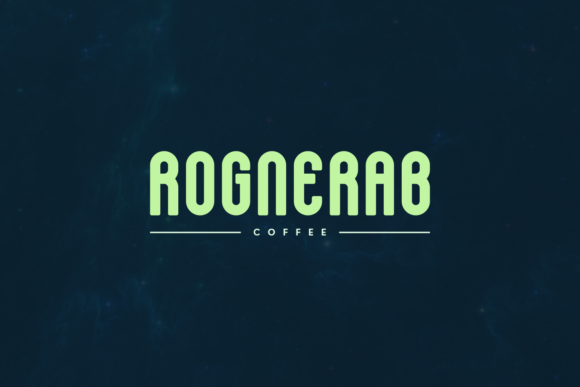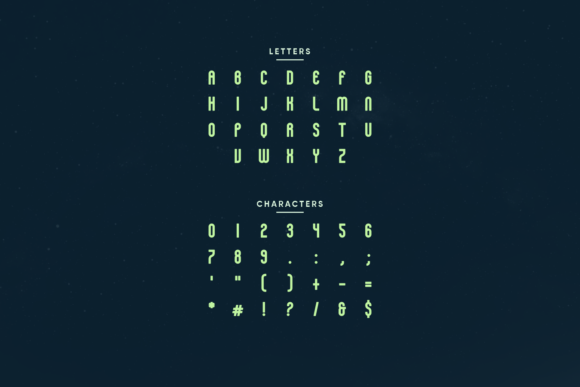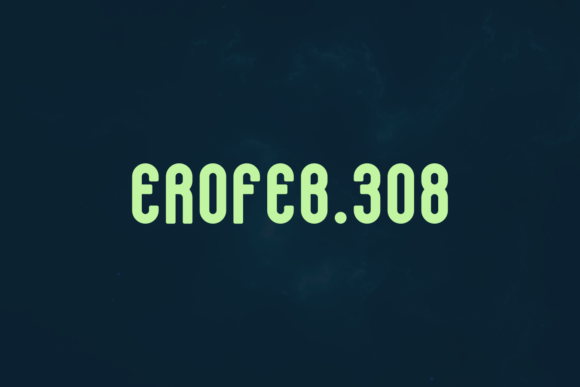
Introduction to Mierahbo Font
Mierahbo is display font with a unique style with a little improvisation in the uppercase mode, although this font is all-caps but has a unique on on application.
This font is very suitable for anything related to the future, illustration, poster, title, logo, magazine, or various other designs, you will get a different experience and stand out in your designs .